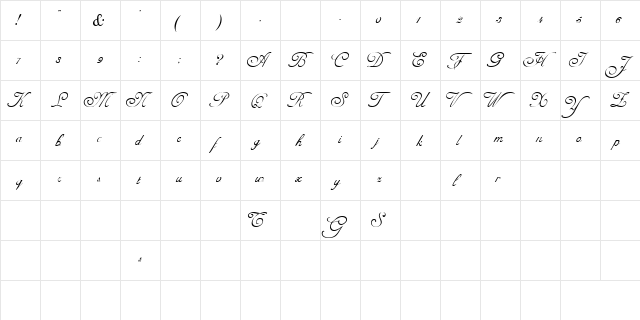
PavillionScriptSSK Regular
Design Context for PavillionScriptSSK Typeface
PavillionScriptSSK brings a calligraphic fluidity to the page — its connecting strokes and expressive curves give it an unmistakably human quality.
Font Pairing: Combine PavillionScriptSSK with a simple geometric sans for maximum contrast — the tension between flowing curves and clean structure is a classic typographic pairing.
Pro Tip: Pair PavillionScriptSSK with a clean sans-serif for supporting text. The contrast between fluid script and geometric structure creates an elegant typographic hierarchy.